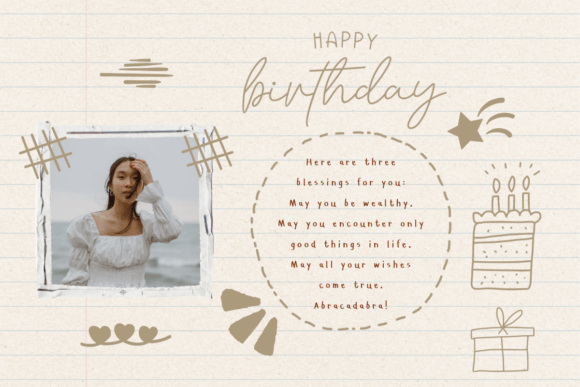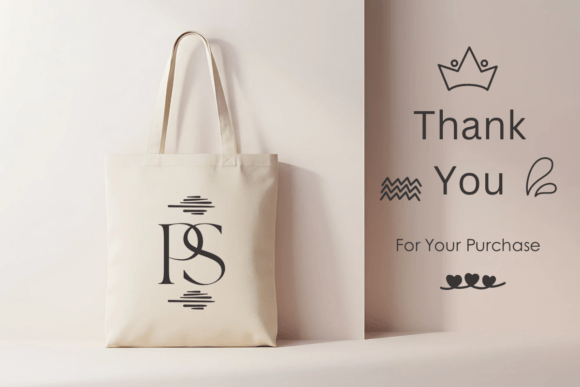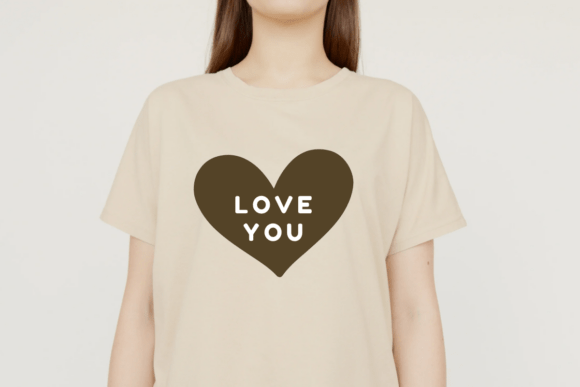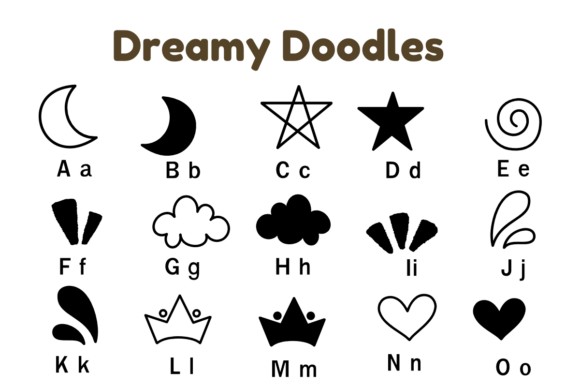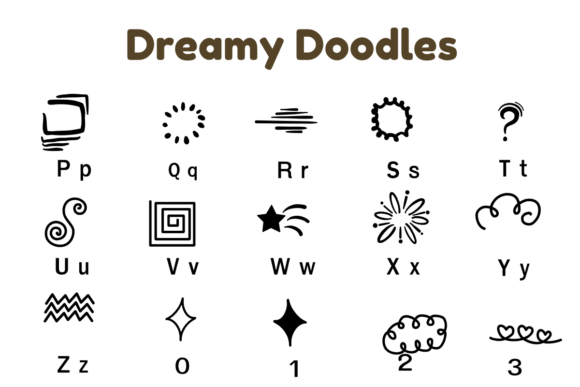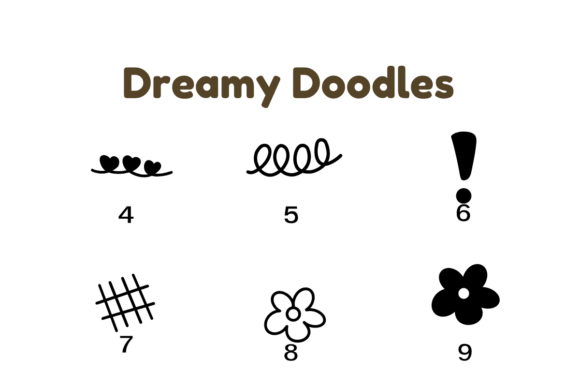
Dreamy Doodles Font: Elevate Your Creative Projects with Whimsical Charm
Are you a designer, crafter, or DIY enthusiast looking for a unique and captivating font to add a touch of personality to your projects? Look no further than the Dreamy Doodles Font, a delightful dingbats font with an abstract theme that’s sure to inspire your creativity. In this article, we’ll dive into the world of Dreamy Doodles, exploring its features, uses, and benefits, as well as provide tips and ideas for incorporating this charming font into your work.
What is Dreamy Doodles Font?
Dreamy Doodles is a dingbats font that boasts an abstract theme, characterized by whimsical and dreamy designs that are perfect for adding a touch of magic to your projects. This font is comprised of a wide range of unique and intricate illustrations, including shapes, patterns, and motifs that can be used to create visually stunning designs. Whether you’re working on a wedding invitation, DIY craft, or logo, Dreamy Doodles Font is the perfect choice for those seeking a font that’s both creative and eye-catching.
Features of Dreamy Doodles Font
So, what makes Dreamy Doodles Font so special? Here are just a few of its standout features:
- Abstract theme: Dreamy Doodles boasts an abstract theme that’s perfect for adding a touch of whimsy to your designs.
- Dingbats font: As a dingbats font, Dreamy Doodles features a wide range of illustrations and symbols that can be used to create unique and eye-catching designs.
- Wide range of designs: This font includes a vast array of designs, including shapes, patterns, and motifs, giving you endless options for creative expression.
- Scalable: Dreamy Doodles Font is fully scalable, allowing you to use it for a wide range of projects, from small crafts to large-scale designs.
Uses for Dreamy Doodles Font
Dreamy Doodles Font is an incredibly versatile font that can be used for a wide range of creative projects, including:
- Wedding invitations: Add a touch of romance and whimsy to your wedding invitations with Dreamy Doodles Font.
- DIY crafts: Use Dreamy Doodles Font to create unique and eye-catching designs for your DIY crafts, such as scrapbooking, card-making, and more.
- Decorations: Create stunning decorations for parties, events, and special occasions using Dreamy Doodles Font.
- Logos: Use Dreamy Doodles Font to create a unique and memorable logo for your business or brand.
- Stationery: Add a touch of personality to your stationery, such as notebooks, journals, and planners, with Dreamy Doodles Font.
Tips for Using Dreamy Doodles Font
Here are a few tips for getting the most out of Dreamy Doodles Font:
- Experiment with different sizes: Don’t be afraid to experiment with different sizes and scales to create visually interesting designs.
- Combine with other fonts: Combine Dreamy Doodles Font with other fonts to create unique and eye-catching designs.
- Use as a design element: Use Dreamy Doodles Font as a design element, rather than as a primary font, to add a touch of personality to your designs.
In conclusion, Dreamy Doodles Font is a unique and captivating font that’s perfect for designers, crafters, and DIY enthusiasts looking to add a touch of whimsy and personality to their projects. With its abstract theme, wide range of designs, and versatility, Dreamy Doodles Font is sure to inspire your creativity and take your designs to the next level. So why wait? Download Dreamy Doodles Font today and start creating your own dreamy doodles!